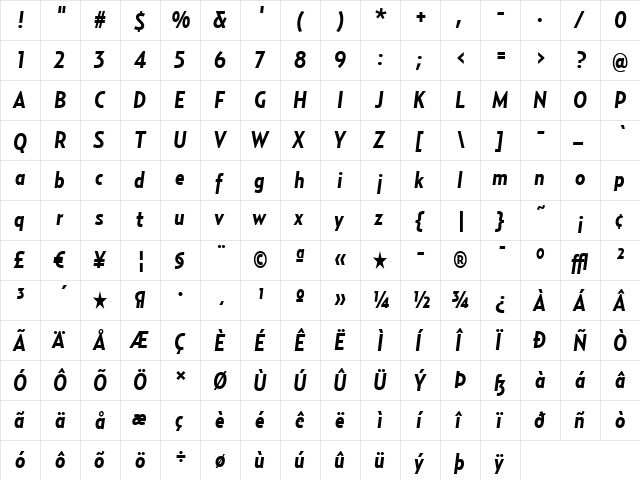
RelayCond-BoldItalic Regular Font Preview
| Designer | Cyrus Highsmith |
Design Context for RelayCond-BoldItalic Typeface
RelayCond-BoldItalic offers clean, dependable letterforms without strong stylistic allegiance, making it a practical choice for designers who need flexibility. Its italic angle brings a sense of urgency and motion to the letterforms. The heavy weight commands attention and anchors typographic hierarchies. The condensed width makes it efficient for tight spaces without sacrificing legibility.